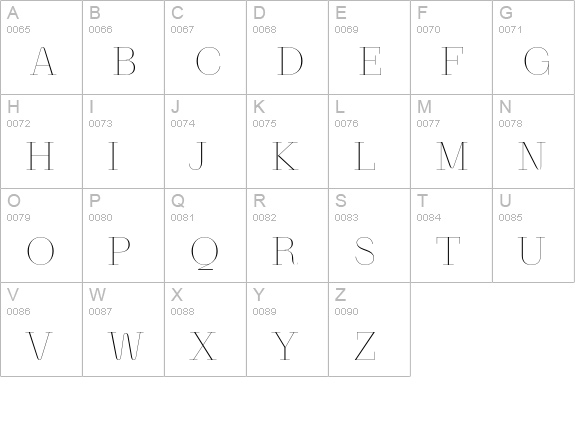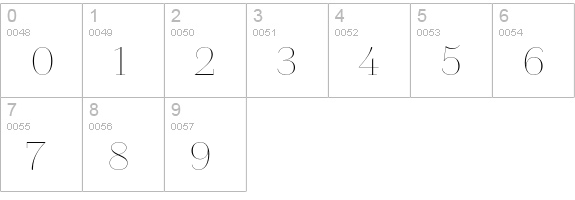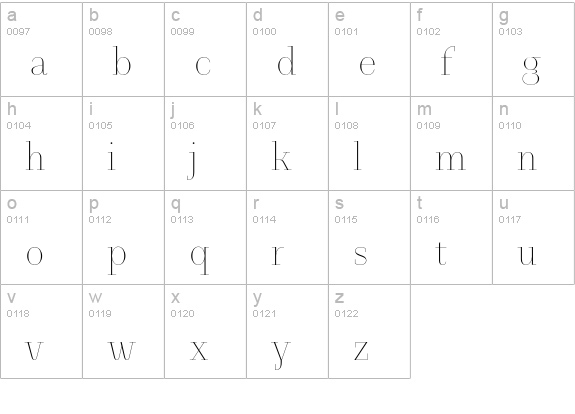
NewParis KingSize Air Font Details
Introducing NewParis KingSize Air font, a bold and captivating typeface that exudes elegance and sophistication. With its generous spacing and clean lines, this font is perfect for making a statement in any design project. The NewParis KingSize Air font is not only visually stunning but also highly versatile, suitable for a wide range of applications from branding to editorial design. And the best part? It's free! You can easily download the NewParis KingSize Air font at FontsMarket.com and start using it in your projects right away. Don't miss out on this opportunity to add a touch of luxury and style to your designs with the NewParis KingSize Air font.